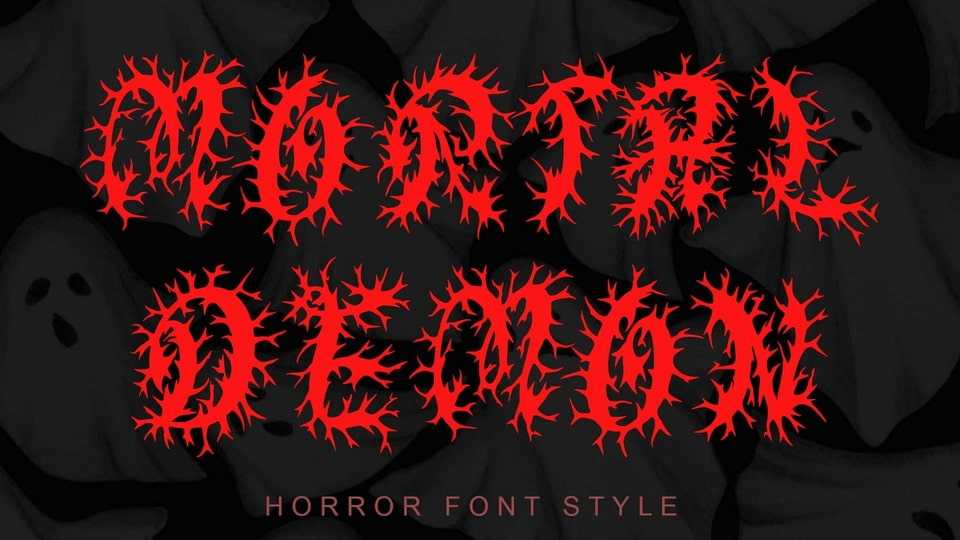
Download Mortal Demon font, a horror and spooky typeface. It’s perfect for Halloween, movie titles, Christmas, stickers, tattoos, back to school, teacher’s day, book titles, magazines, and more.